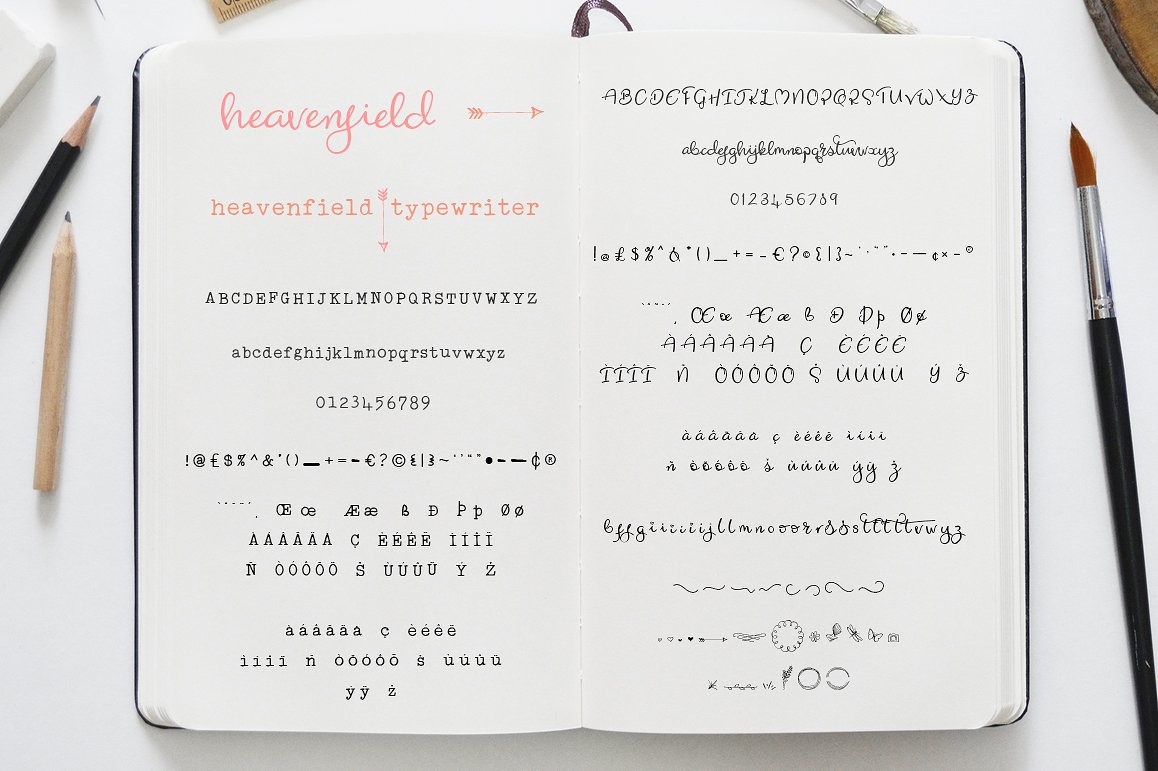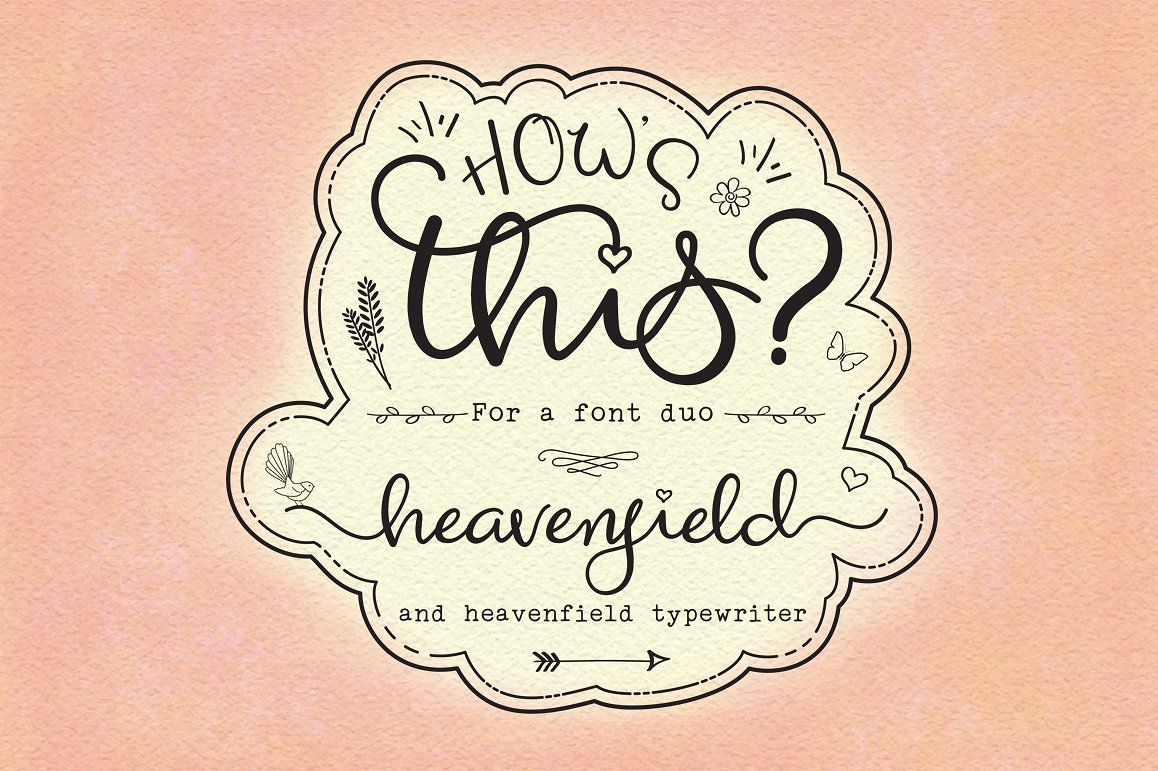
Heavenfield Wedding
Heavenfield Wedding Font
Heavenfield wedding font duo
There are several alternates so you don’t have to use the heart dotting the ‘i’ but it does emphasise romance in your designs which are to do with love, weddings, valentines, births, and logo designs.
There are also some end swashes and ornaments to add that extra little something to your typography.
This font duo is perfect for diy crafts and wedding stationery designs (as you can see in the pictures). It’s also great for logos – Heavenfield regular is a bold, flowing script font which can be easily read and Heavenfield Typewriter compliments it perfectly as a more formal, authentic font for taglines.